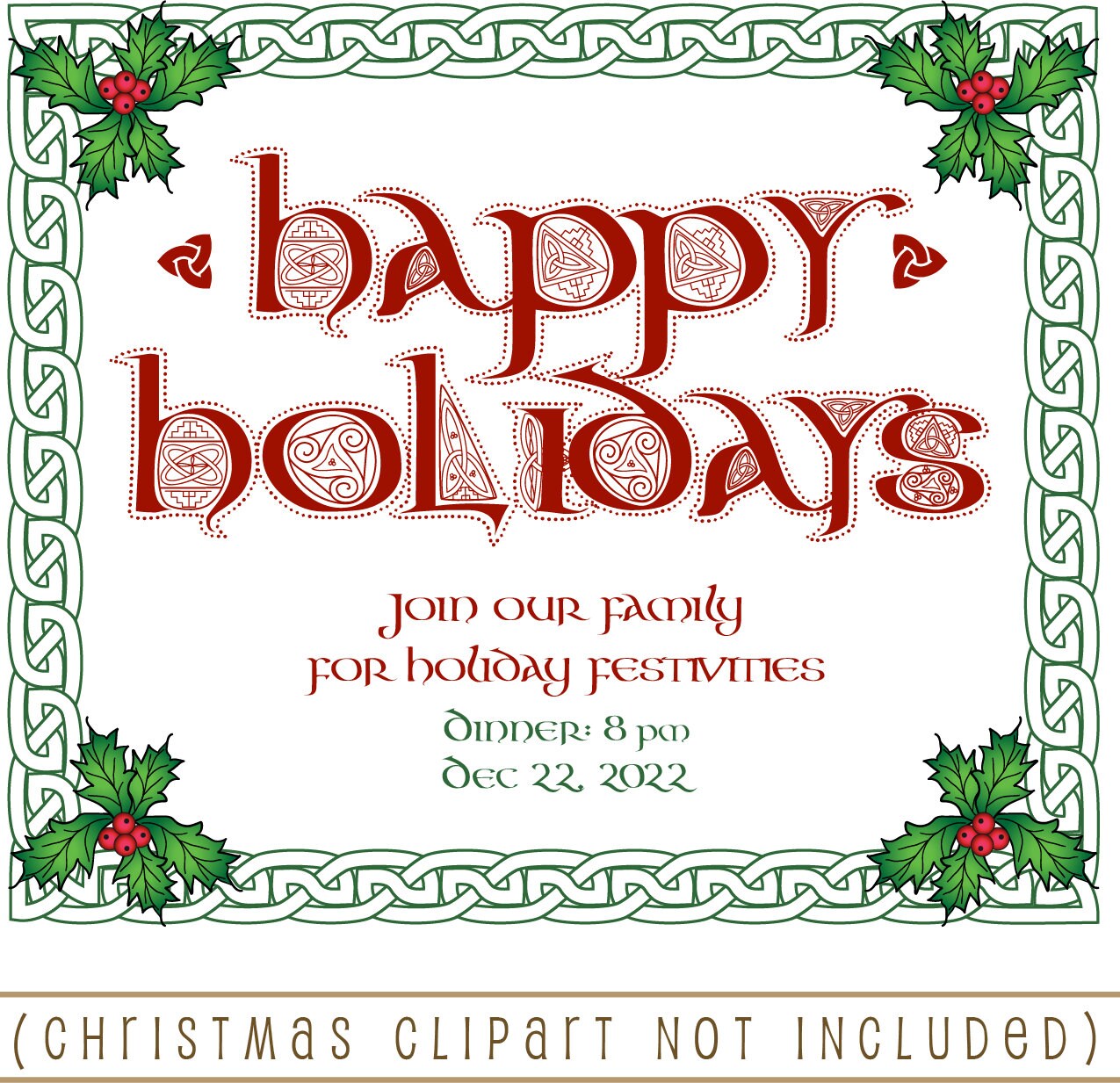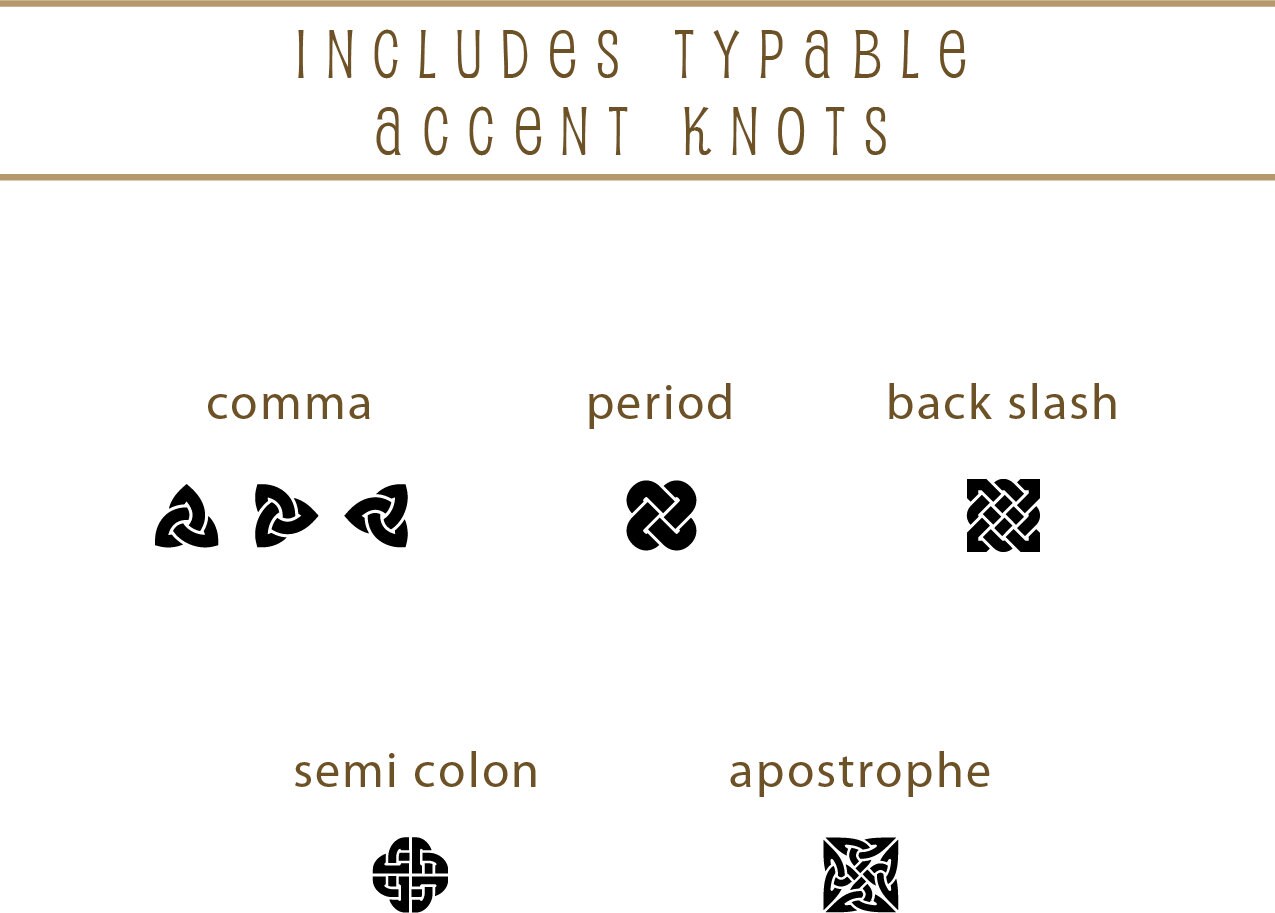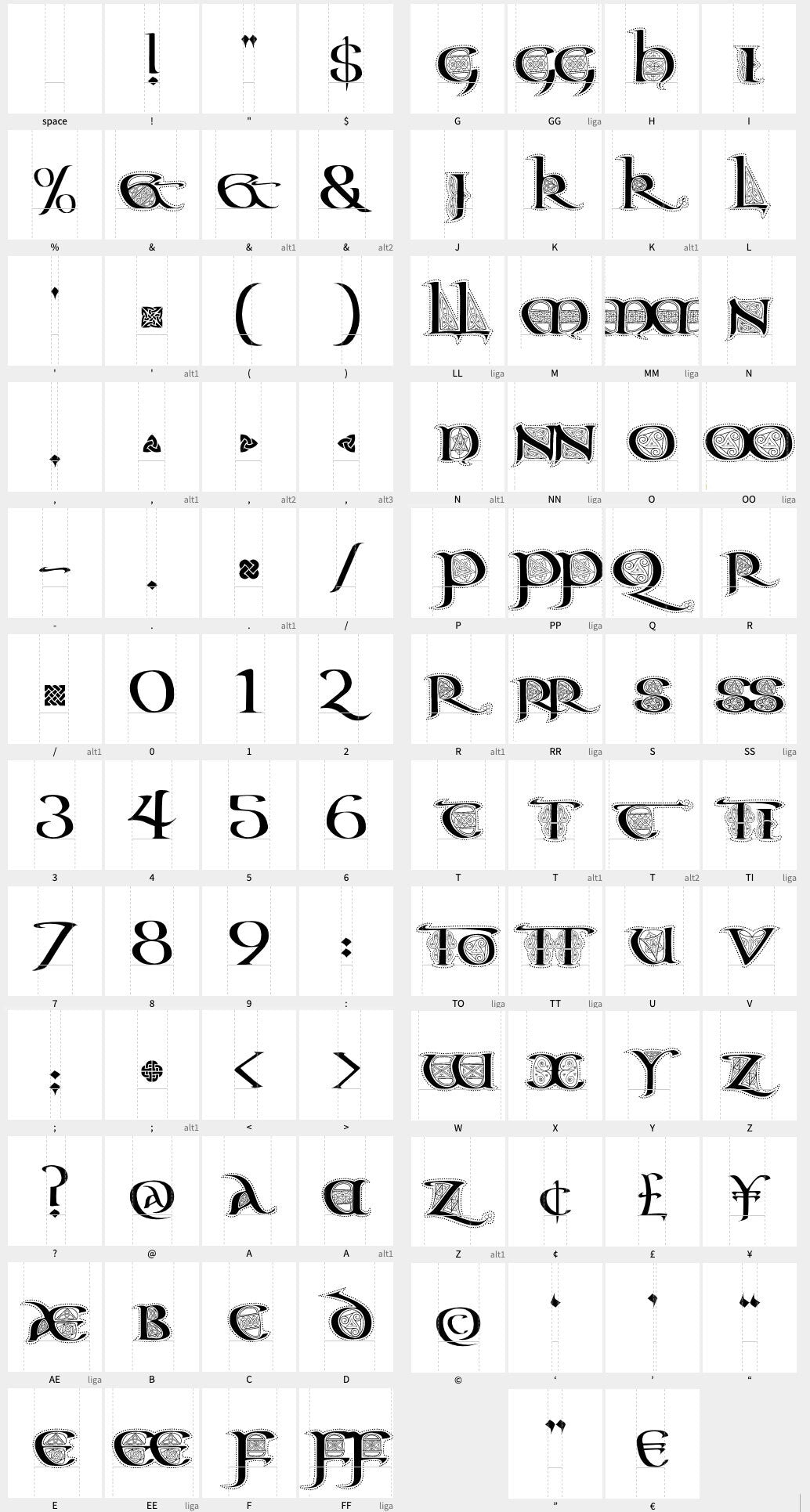
☘️ A beautiful typable font using colorful decorated letters based on Celtic manuscripts like the Book of Kells or Lindisfarne Gospels! Includes alternate and/or extended letters for A, K, R, T, N and Z, as well as custom ligatures, numbers and common punctuation. I've also included some little Celtic knot dingbats for you to use in your projects - just type to add!
This font is a regular font - not like the other two AON Manuscript fonts, which are color fonts that need super current software. This font can be installed and typed in all your normal programs, so you can just type out all that glorious Celtic detail!
Each letter is decorated with knotwork, spirals, maze and step patterns in a matching Celtic styled collection. This collection can be used alone or as decorated capital letters with normal uncial calligraphy or Celtic fonts. If you're looking for a matching font without all the decorations, try my AON Celtic font here : https://www.etsy.com/ca/listing/1175261802
Perfect for creating personal stationary, monograms, invitations and using in craft projects!